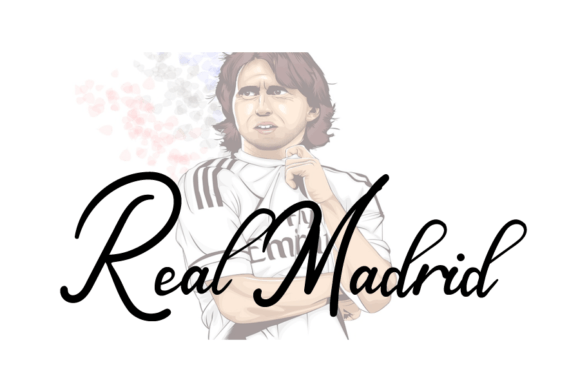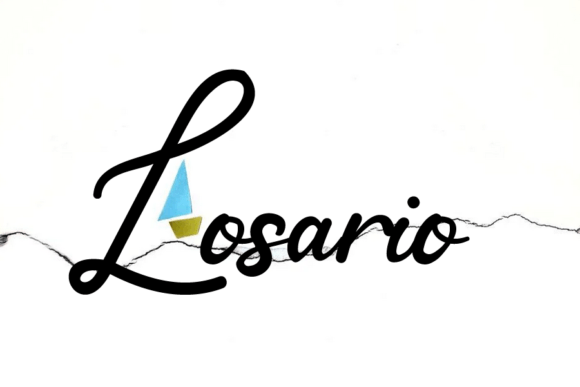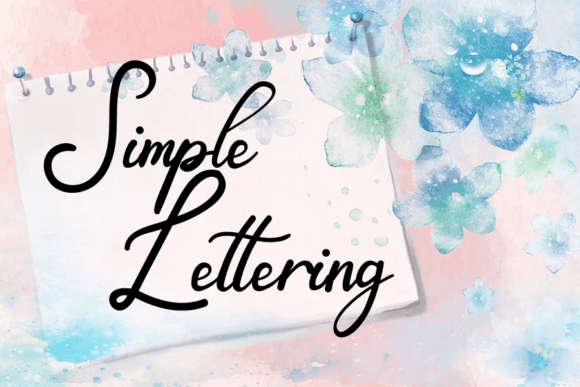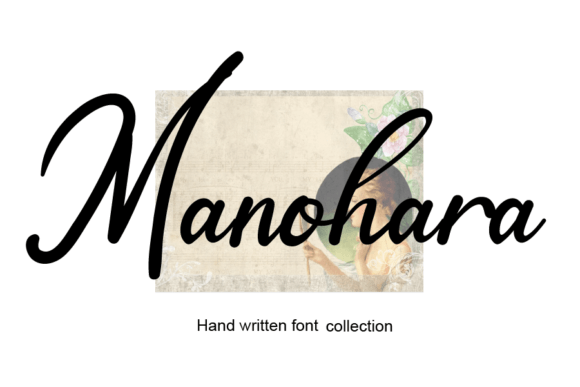
Introduction to Manohara Font
Manohara is a classic handwritten font.
This versatile script font has a wide spectrum of applications, ranging from greeting cards to kids’ crafts, and is guaranteed to add a sweet touch to your next design .
Manohara Font offers exceptional quality and versatility, making it a valuable addition to your design toolkit. Whether you’re creating for personal projects or commercial use, Manohara Font delivers professional results.